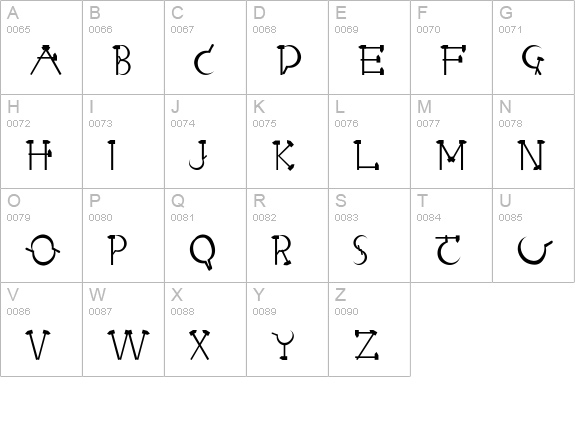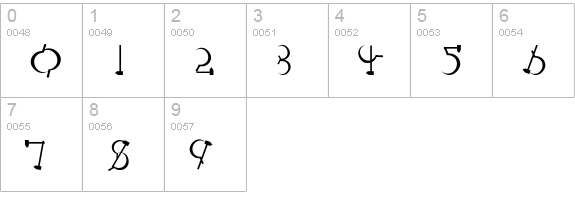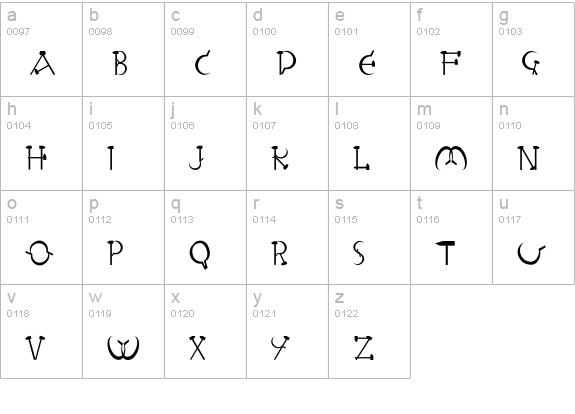
RedLetter-Normal Font Details
RedLetter-Normal is the standard, neutral variant in the RedLetter typeface family \xE2\x80\x94 well suited to general body text, paragraphs, and standard typographic work.
RedLetter-Normal is a visually striking font that exudes elegance and sophistication. With its clean lines and bold curves, this font captures attention and leaves a lasting impression. Perfect for both elegant and modern designs, RedLetter-Normal adds a touch of style and uniqueness to any project. What sets RedLetter-Normal apart is not only its stunning design but also the fact that it is freely available to download at FontsMarket.com. This means that you can enhance your creative endeavors without any financial burden. Whether you're a professional designer or a passionate hobbyist, RedLetter-Normal is a must-have addition to your font collection. The versatility of RedLetter-Normal is truly remarkable. From branding materials to invitations, posters to websites, this font can effortlessly adapt to any design concept. Its readability and legibility make it suitable for both headlines and body text, ensuring that your message is conveyed effectively and with impact. Unleash your creativity and make a statement with RedLetter-Normal. Its bold and eye-catching appearance will captivate your audience and leave a lasting impression. Download this stunning font for free at FontsMarket.com and elevate your designs to new heights.